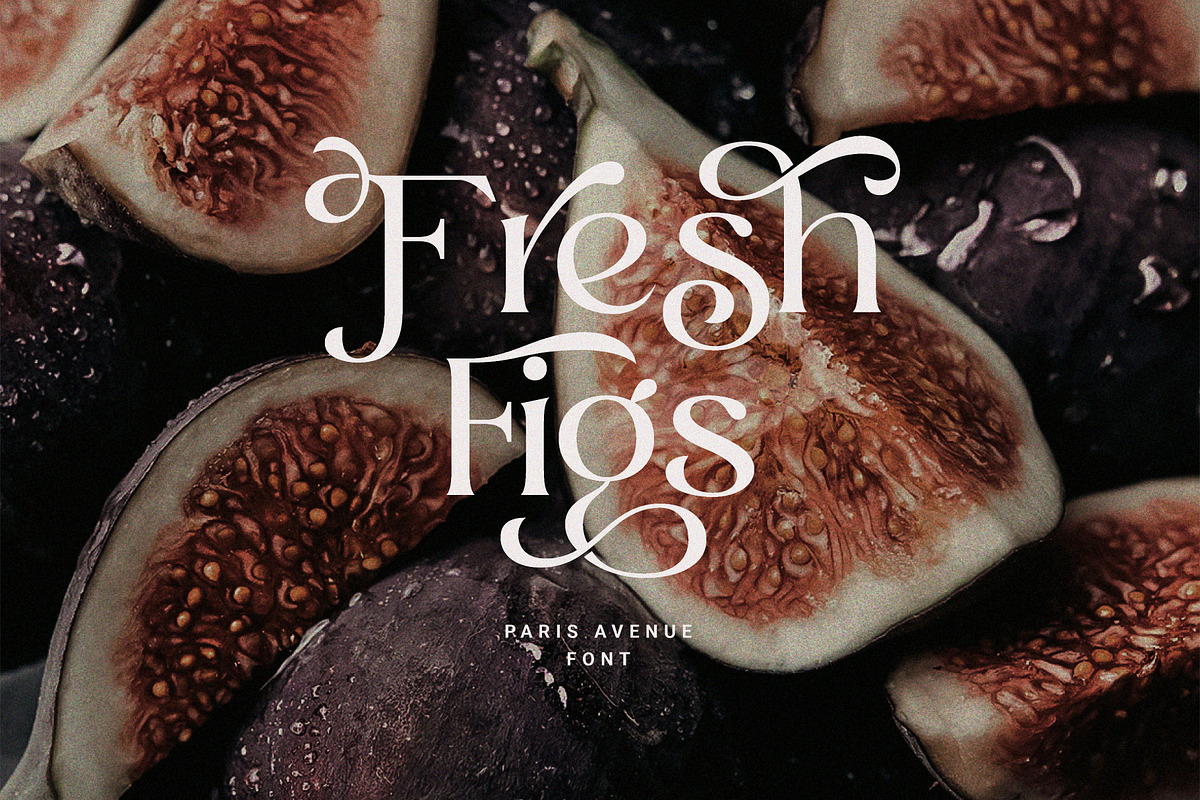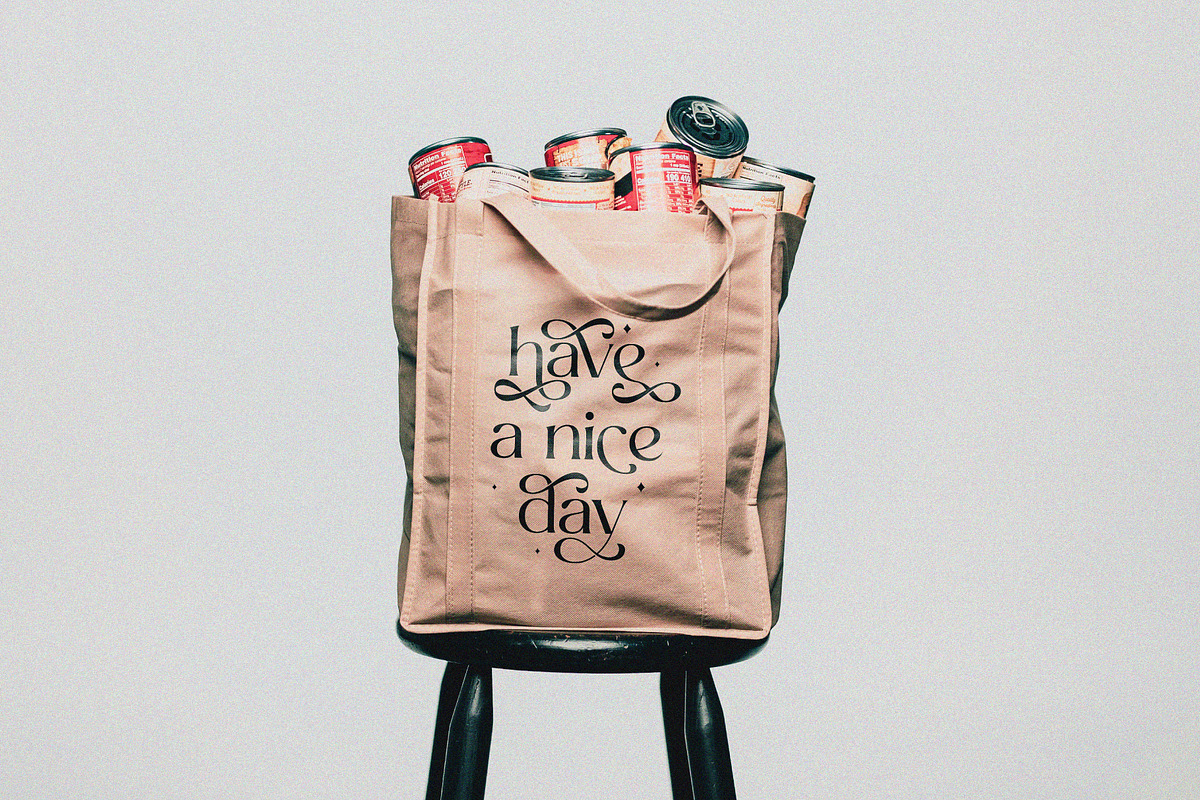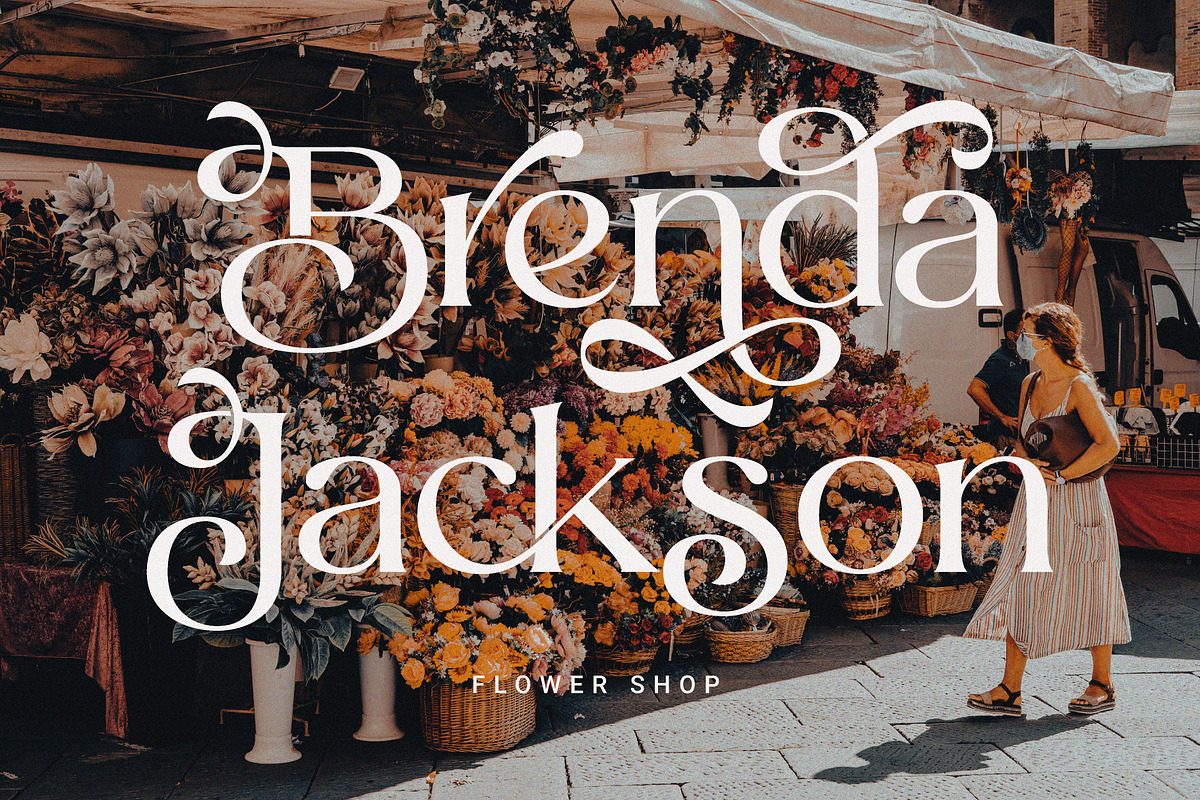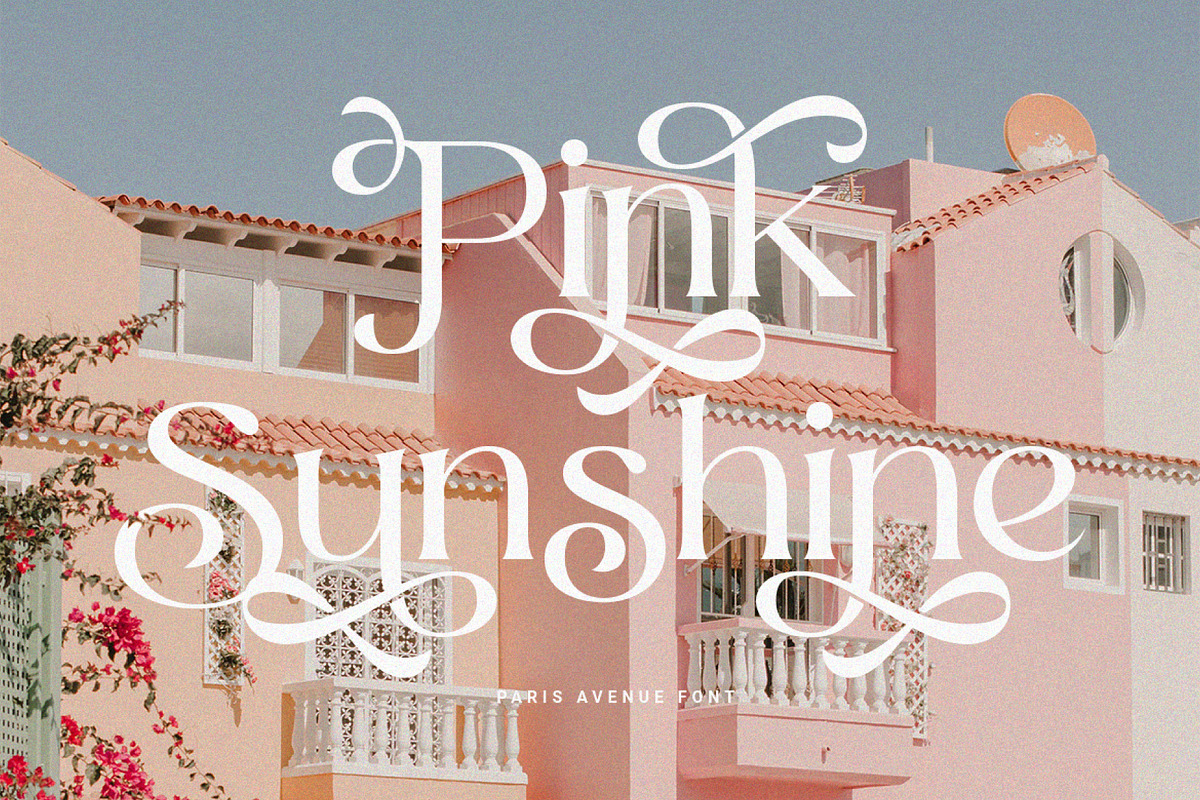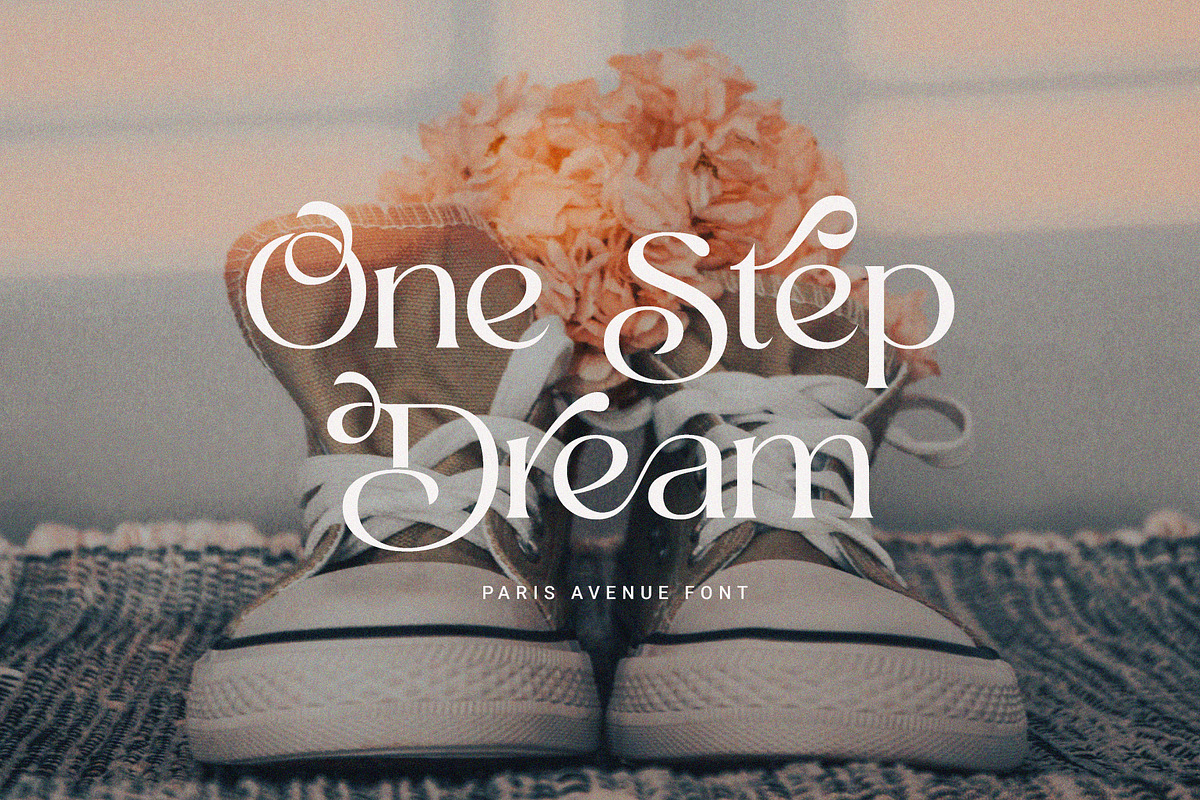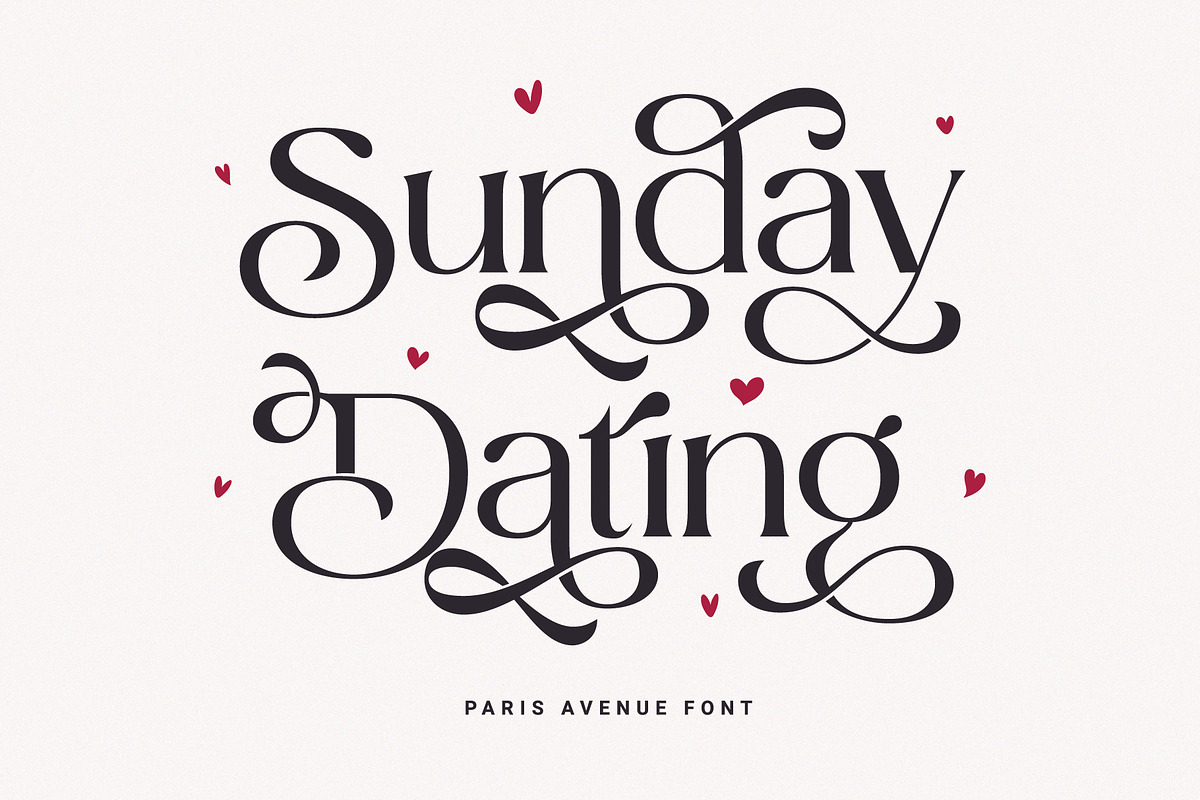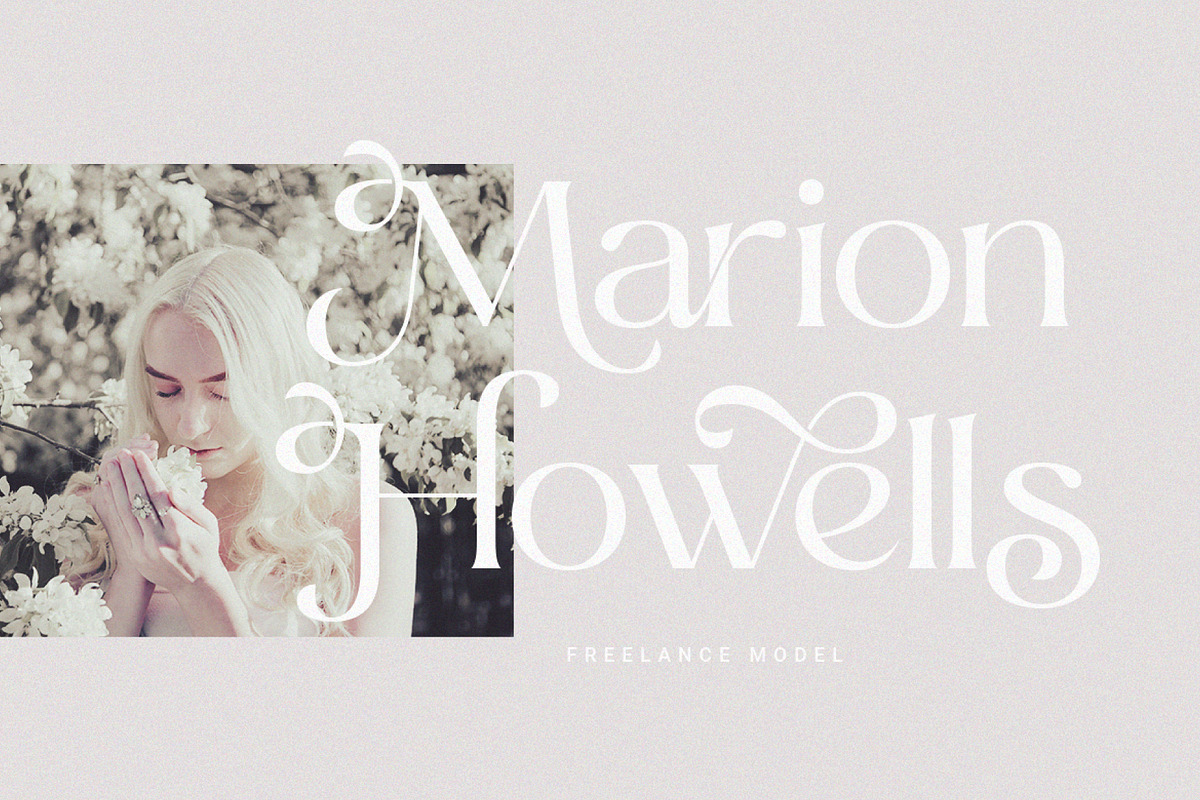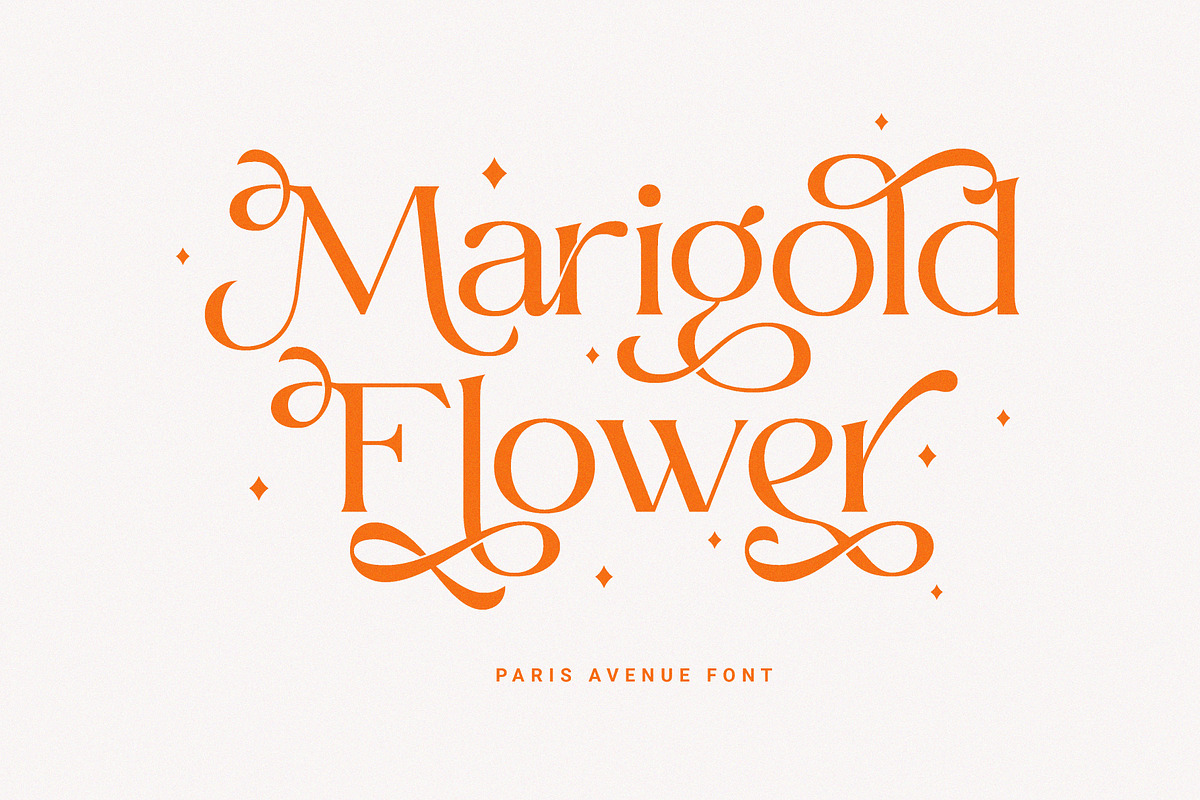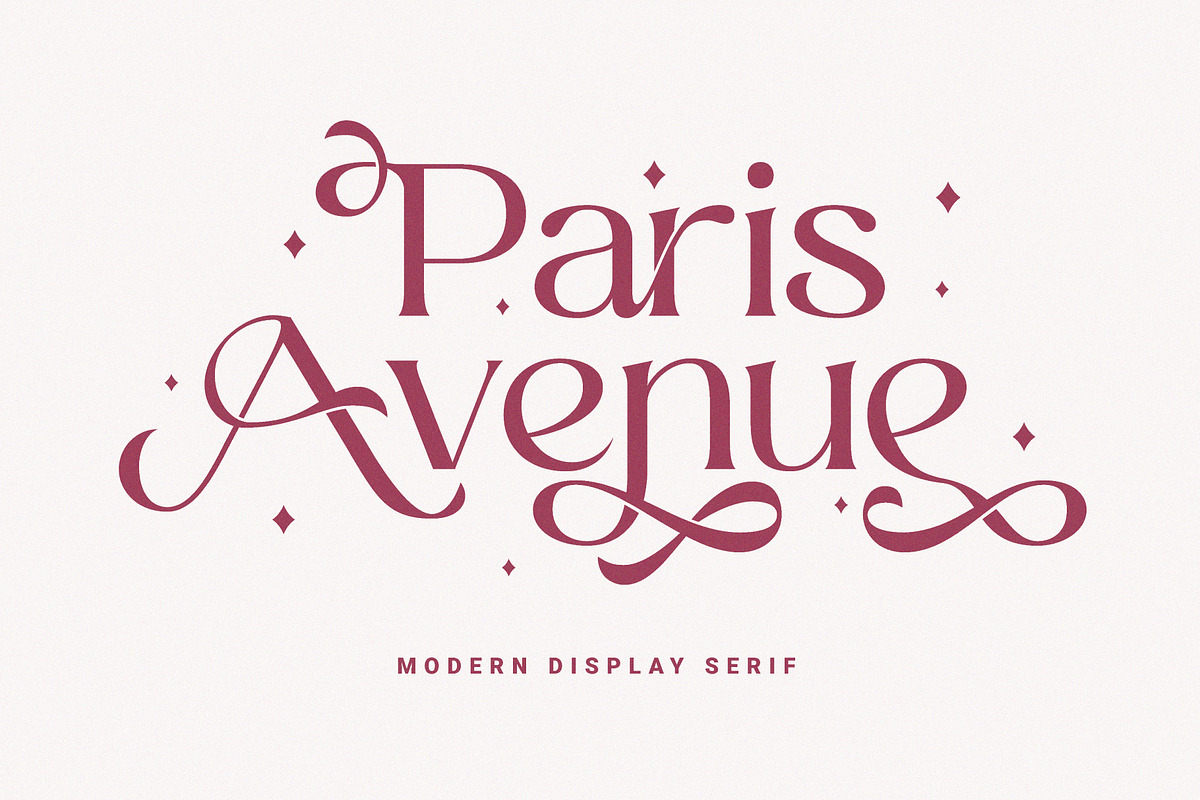
Paris Avenue - Modern Display Serif
Paris Avenue - Modern Display Serif.
A modern display serif font with a wide variety of alternative characters to expand your design exploration. Great to apply to branding designs, wedding invitations, headlines, logos and more.
- Features: Uppercase, Lowercase, Numeral, Punctuation, Multilingual, Alternates & Ligatures.
- Multilingual contained: Afrikaans, Albanian, Asu, Basque, Bemba, Bena, Breton, Catalan, Chiga, Cornish, Danish, Dutch, English, Estonian, Filipino, Finnish, French, Friulian, Galician, German, Gusii, Indonesian, Irish, Italian, Kabuverdianu, Kalenjin, Kinyarwanda, Luo, Luxembourgish, Luyia, Machame, Makhuwa-Meetto, Makonde, Malagasy, Manx, Morisyen, North Ndebele, Norwegian Bokmål, Norwegian Nynorsk, Nyankole, Oromo, Portuguese, Quechua, Romansh, Rombo, Rundi, Rwa, Samburu, Sango, Sangu, Scottish Gaelic, Sena, Shambala, Shona, Soga, Somali, Spanish, Swahili, Swedish, Swiss German, Taita, Teso, Uzbek (Latin), Volapük, Vunjo, Zulu.